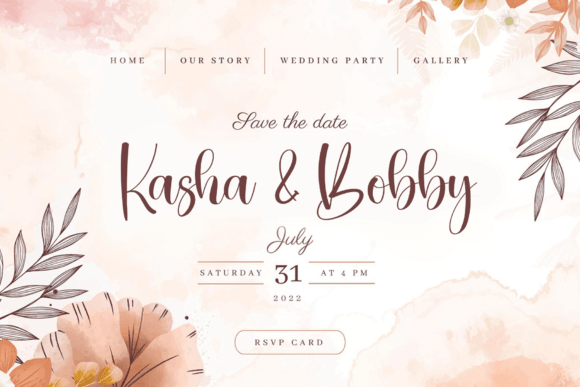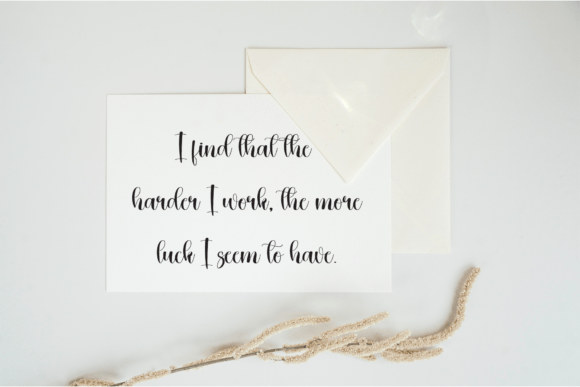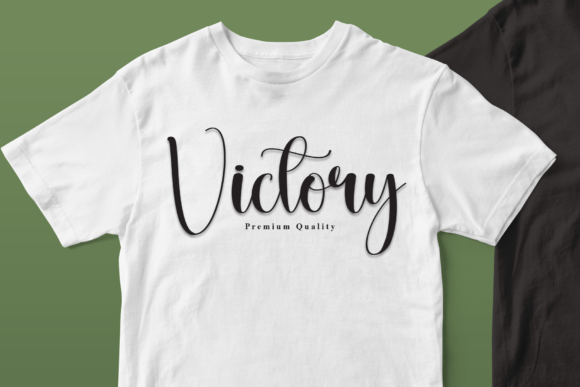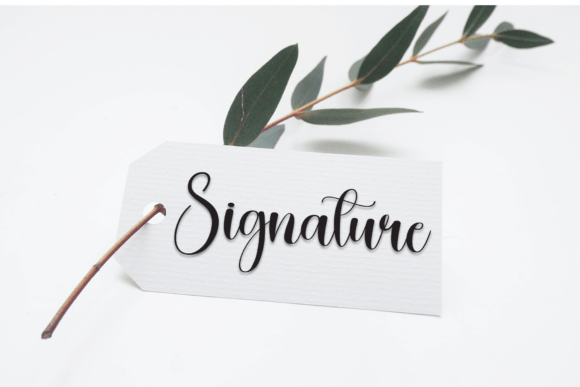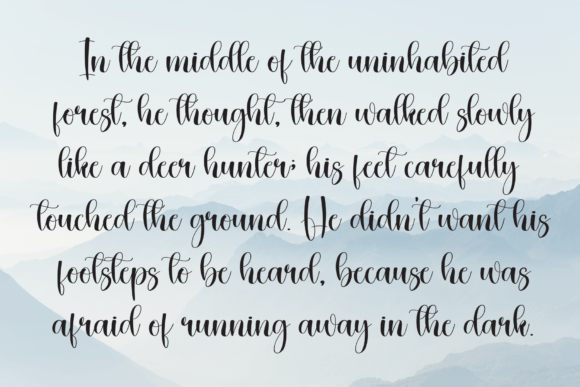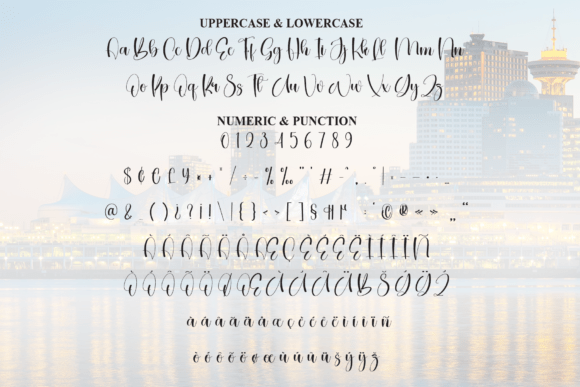
A Fresh Twist on Handwritten Charm
Have you ever stumbled upon a design that just speaks to you? For me, it was the moment I discovered the perfect script font to elevate my branding game. It was love at first sight – the flowing strokes, the organic curves, the effortless charm. That moment sparked a new creative direction, and I’m excited to share it with you.
Australian Font is a stylish handwritten script font that brings elegance and modern flair to any project. Its purpose is to add a personal touch, making it perfect for branding, invitations, and social media. As a designer, you’ll appreciate the value of Australian Font in bringing warmth and sophistication to your work. With its refined and organic feel, this typeface is a valuable addition to any design toolkit.
Australian Font Key Features
- Font Family: The Australian font family consists of several styles, including Regular, Bold, Italic, and Bold Italic.
- Unique Characteristics: The Australian font features a unique, modern design with clean lines and a friendly feel, making it perfect for various applications, including body text, headings, and titles.
Australian Font Review
I recently had the chance to work with the Australian Font, and I have to say, it’s a mixed bag. There are some great things about it, but there are also some limitations that might make it less appealing to some designers.
Unique and Quirky Feel
The Australian Font has a distinctive, laid-back feel that’s perfect for projects that need a bit of Aussie charm.
Good for Headlines and Titles
The font’s bold and playful lines make it great for grabbing attention in headlines and titles.
May Not Be Suitable for Body Text
The font’s unique feel can be overwhelming when used for large blocks of text, making it difficult to read.
Limited Character Set
The font’s character set is limited, which can be a problem if you need to use special characters or accents.
The Australian Font is a great choice for designers who want to add a bit of Aussie flair to their projects. While it’s not perfect, its unique feel and good typography make it a solid option for headlines and titles. Just be aware of its limitations, and use it wisely.
The Australian Font is ideal for creating a rustic or vintage feel in your designs. Use it for:
- Outdoor and adventure-themed designs
- Old-timey or retro-style graphics